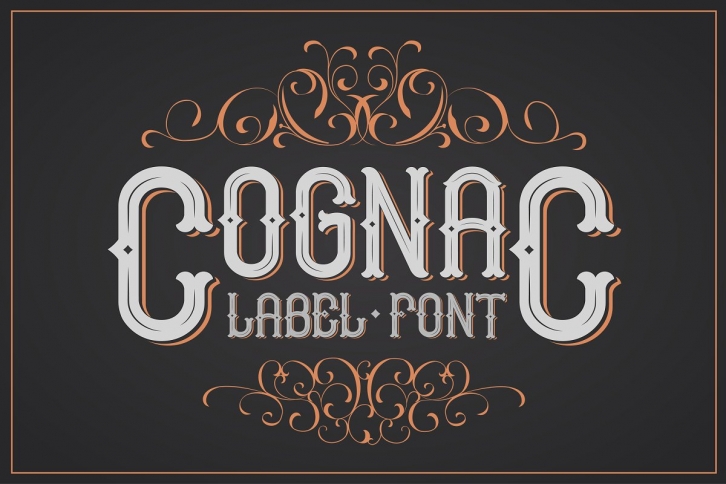
Cognac. for label. Uppercase only! is a great font that was designed by Fractal fonts. Imagine the amount of combinations you can create using this font! The archive is 3.93 MB and it was released on October 14, 2019. Cognac. for label. Uppercase only! looks beautiful on wedding invitations, greeting cards, logos, posters, labels, t-shirt designs, logos, business cards and is perfect for use in ink or watercolor works, fashion, magazines, packaging and food menus, children's books and more!